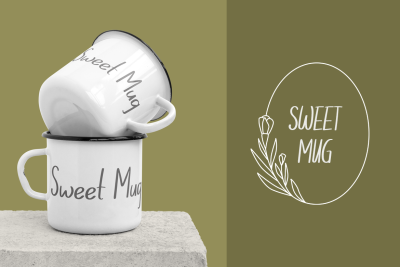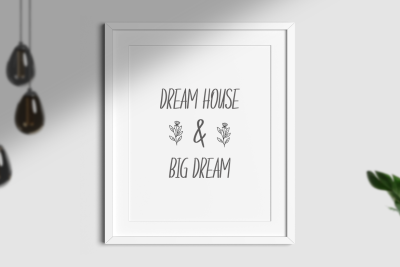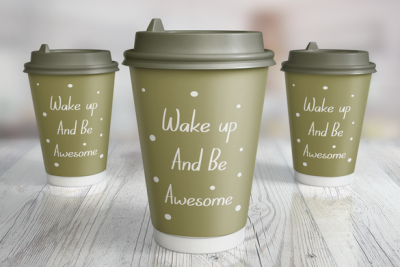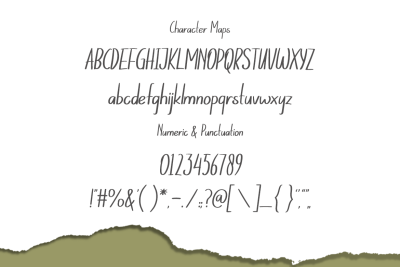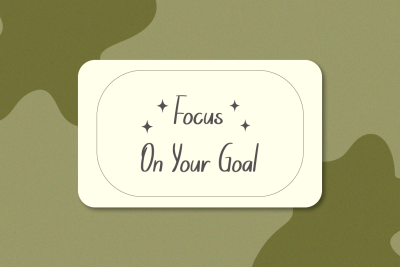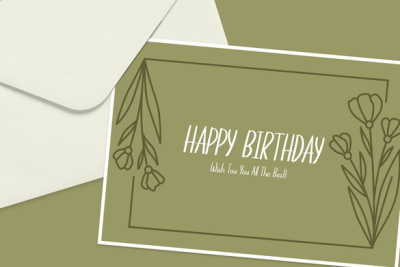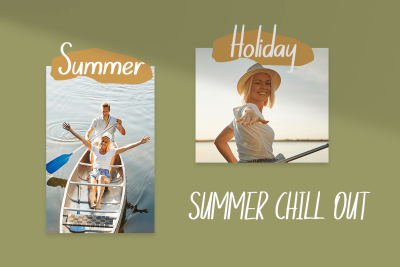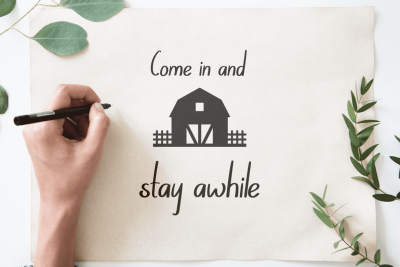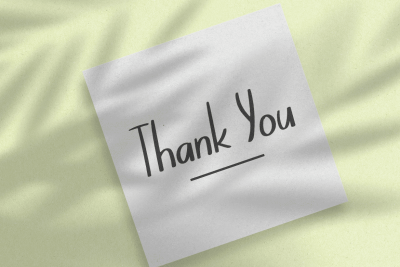
Handwriting Font Love Letter is a romantic and delicate typeface. It evokes warmth and heartfelt emotions with its timeless style. Designed to mimic handwritten letters, this font captures the essence of personal connections. Moreover, its smooth, flowing lines and gentle strokes balance elegance and casual charm. This makes it perfect for a variety of creative projects.
The fontโs soft and expressive style suits designs centered around emotions and celebrations. For instance, it works beautifully for wedding invitations, love notes, or personalized greeting cards. Additionally, Handwriting Font Love Letter adds authenticity and heartfelt emotion to your work. Its versatility also makes it ideal for lifestyle and fashion-related projects.
Furthermore, this font brings warmth and nostalgia to designs. Subtle imperfections in the lettering enhance its charm. As a result, Handwriting Font Love Letter feels uniquely crafted, giving projects a human touch. It is particularly suitable for designs aiming to connect with audiences on a deeper level.
Handwriting Font Love Letter Who Is It Suitable For?
Handwriting Font Love Letter is perfect for anyone creating heartfelt designs. For example, wedding planners and event organizers can use it to craft elegant materials. From invitations to thank-you cards, the font exudes sophistication and love.
In addition, photographers and videographers specializing in weddings will also benefit. It works well for branding, watermarks, and promotional materials. This handwritten style aligns with personal and emotional storytelling.
Similarly, boutique brands in fashion, beauty, or lifestyle industries will find it valuable. This font is helps communicate elegance and approachability. Use it for logos, packaging, and social media graphics to leave a lasting impression.
Moreover, small businesses crafting personalized gifts will appreciate the fontโs sincerity. Itโs ideal for creating custom jewelry tags, keepsakes, or heartfelt home decor. Bloggers and content creators in lifestyle and self-care niches can also enhance their visuals with this font.
Finally, educators and parents can use it for certificates or heartfelt classroom materials. Its warmth and charm make it a versatile option for any creative need.
In summary, this font is an elegant typeface. It helps create meaningful and emotional designs for personal or professional projects. Its timeless appeal makes it a valuable tool for all creatives.